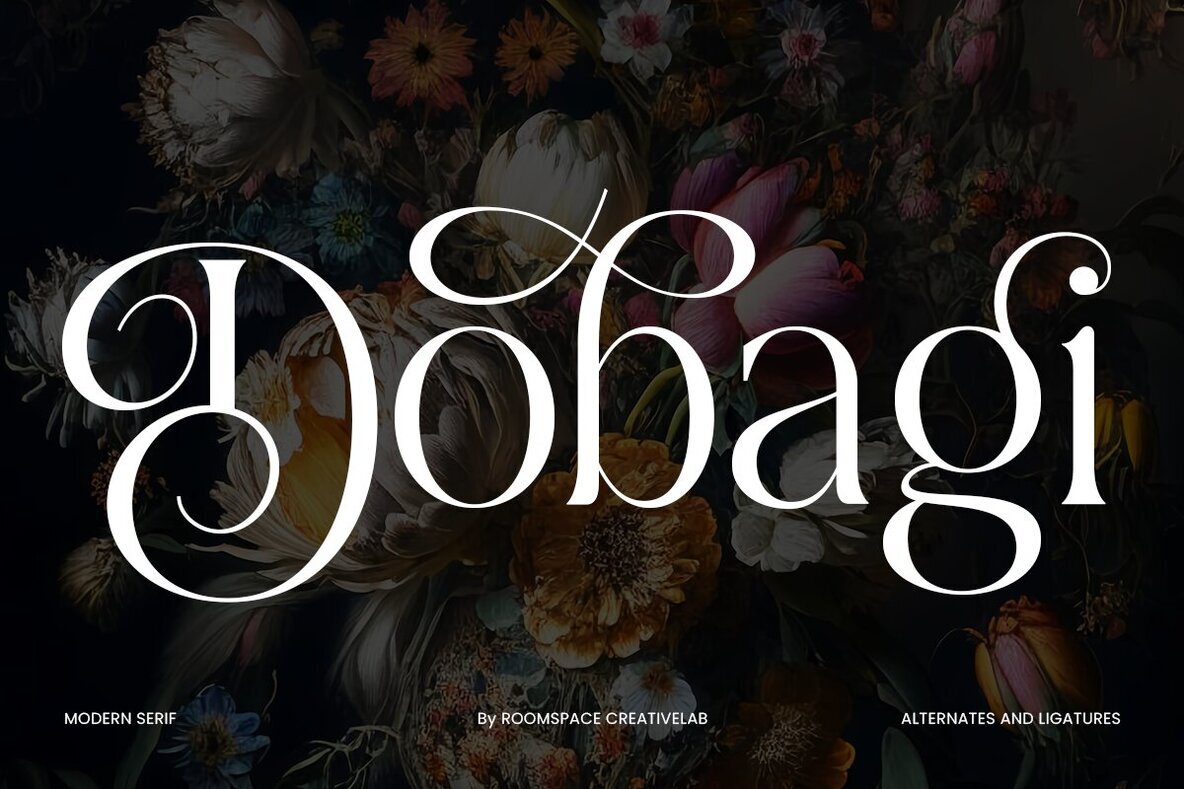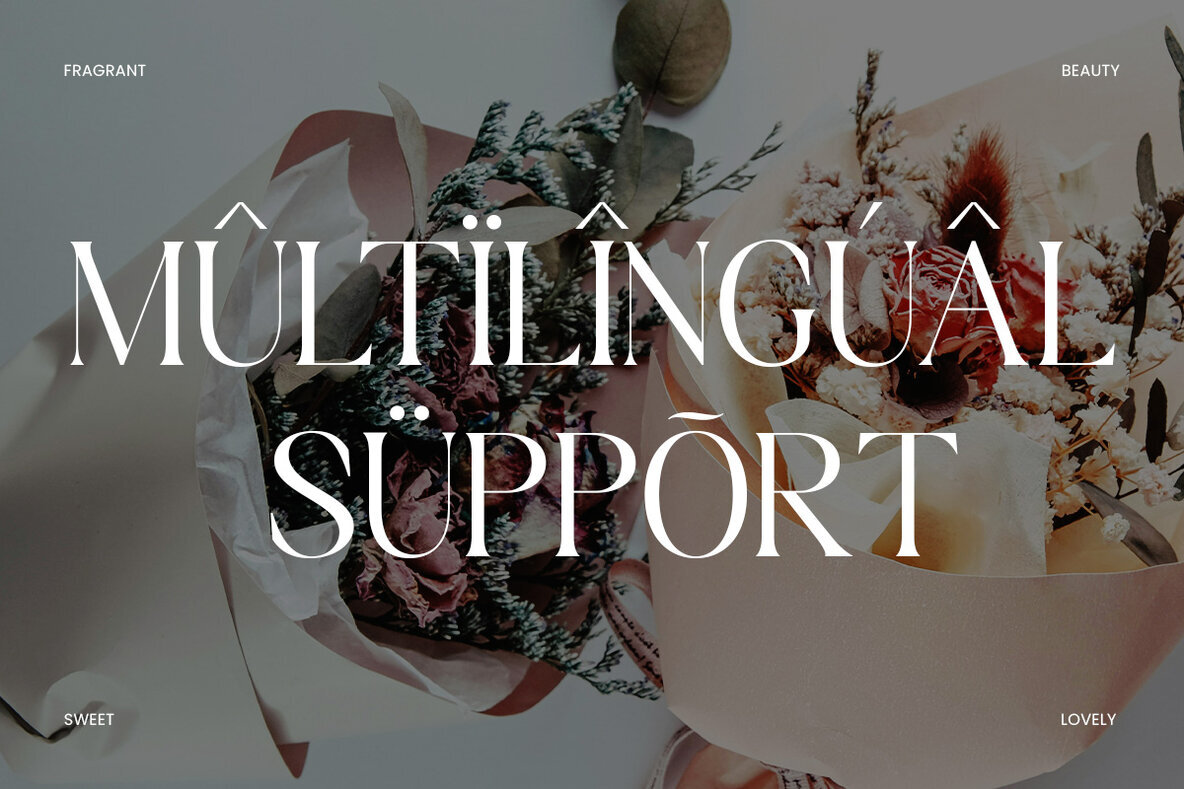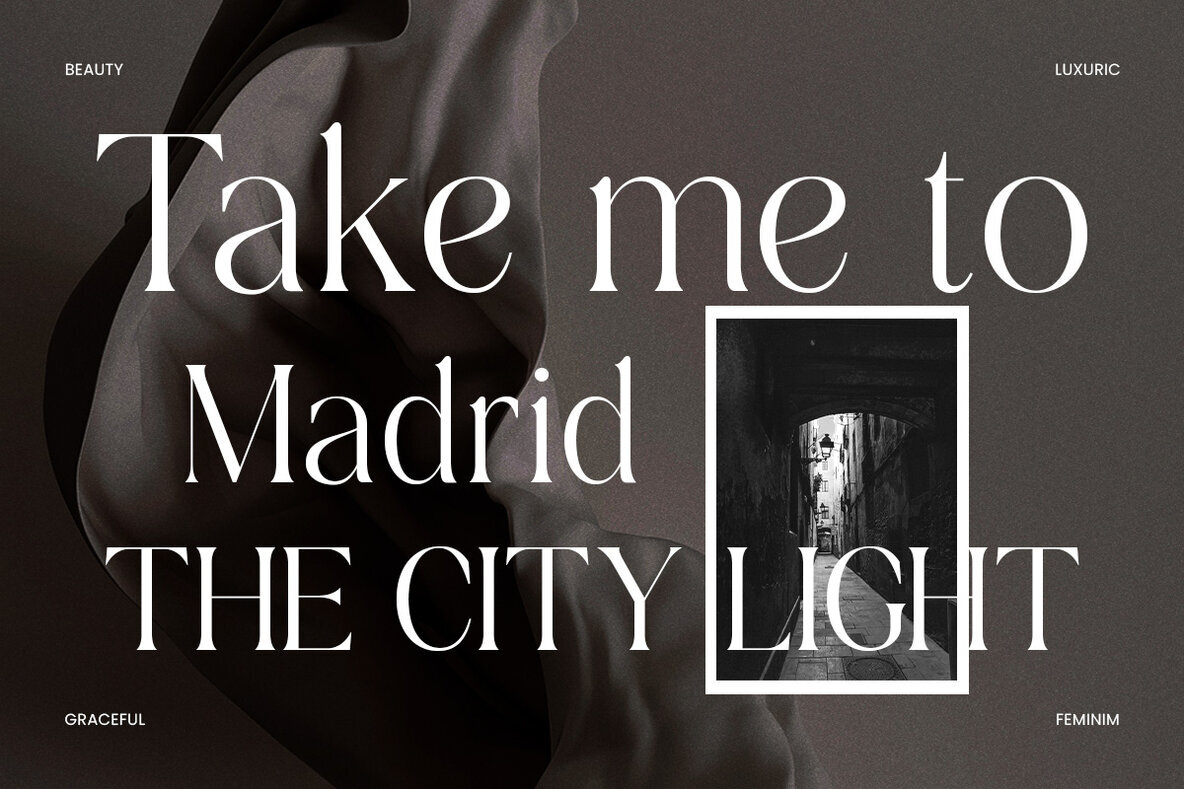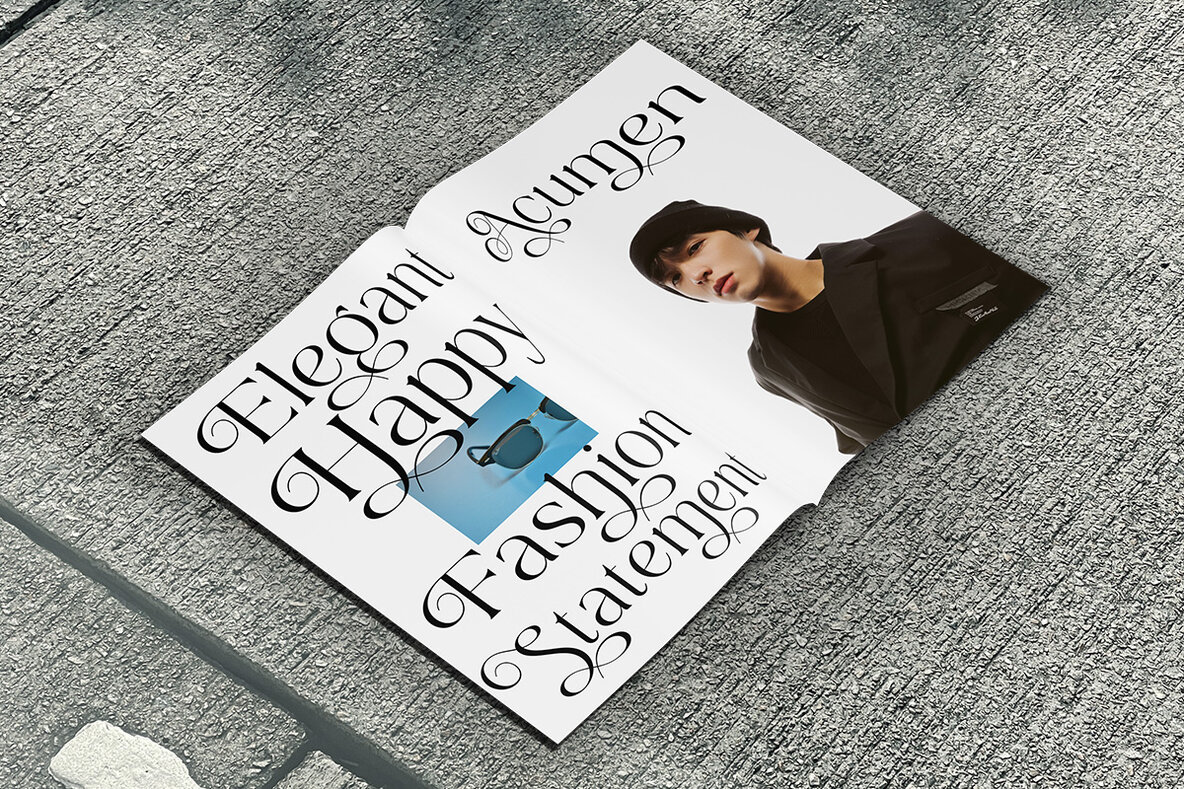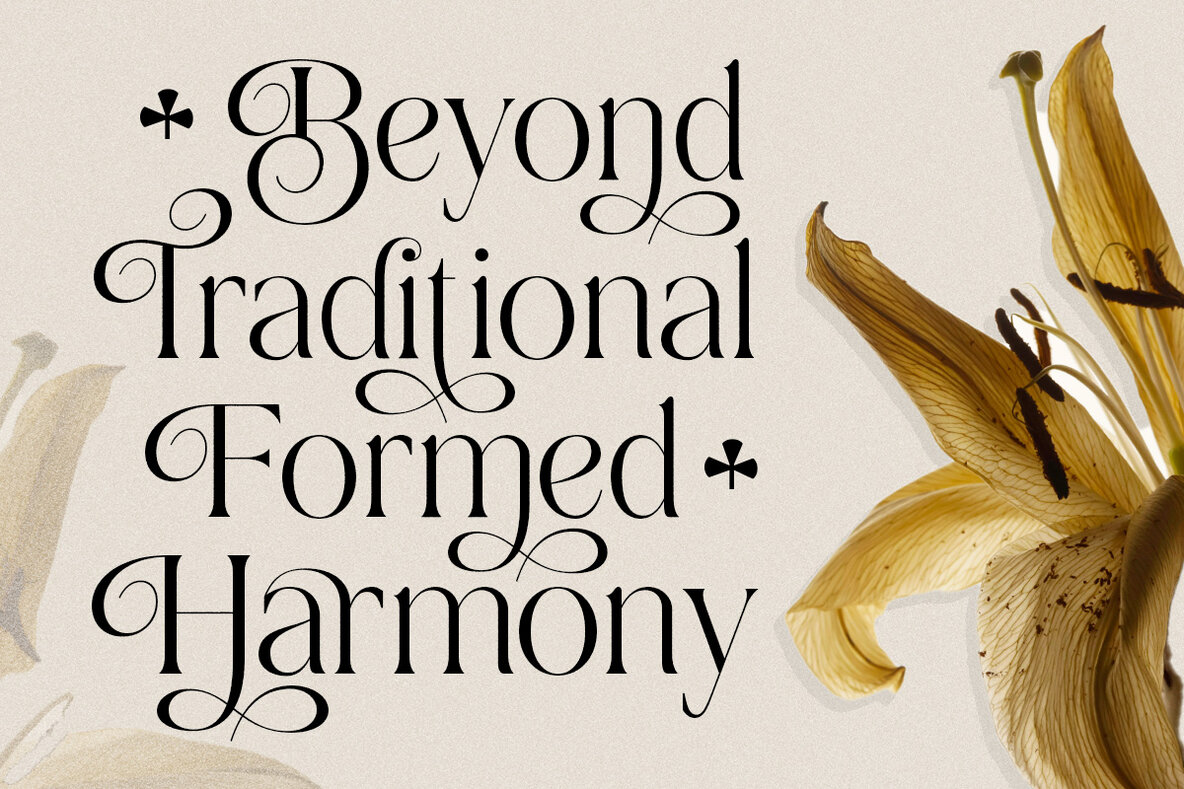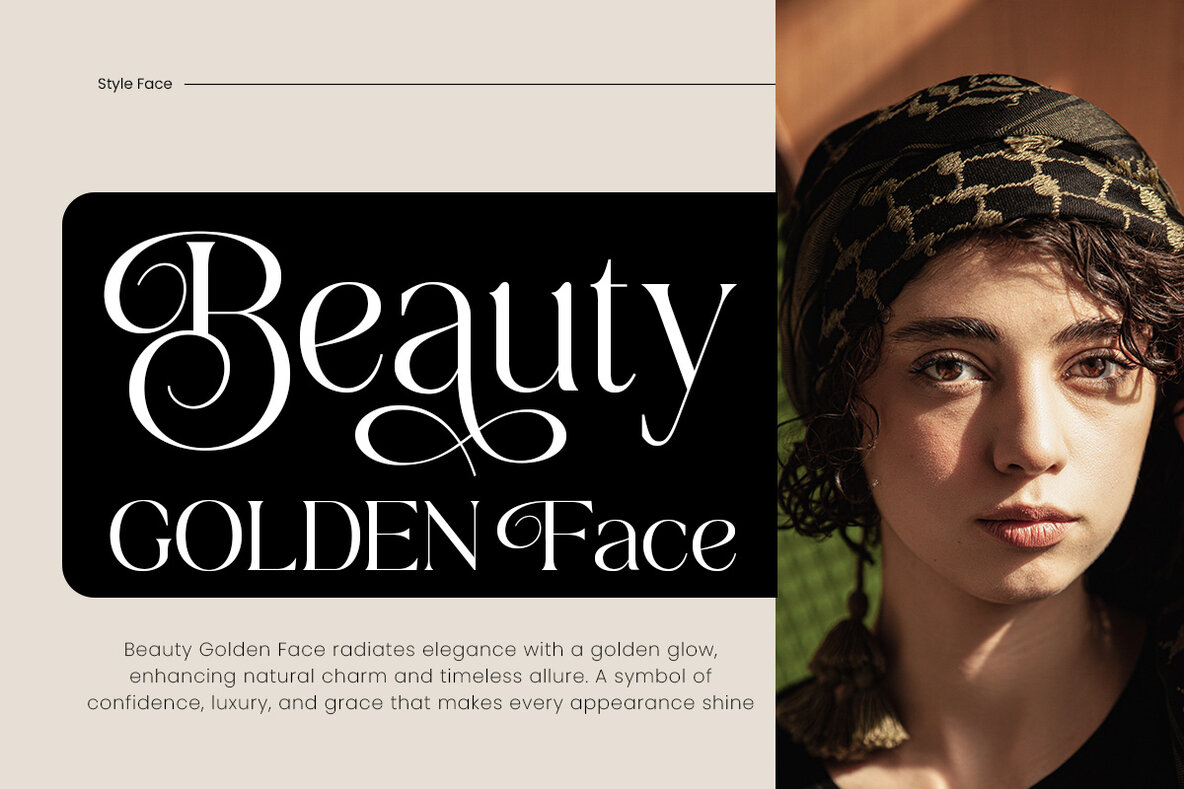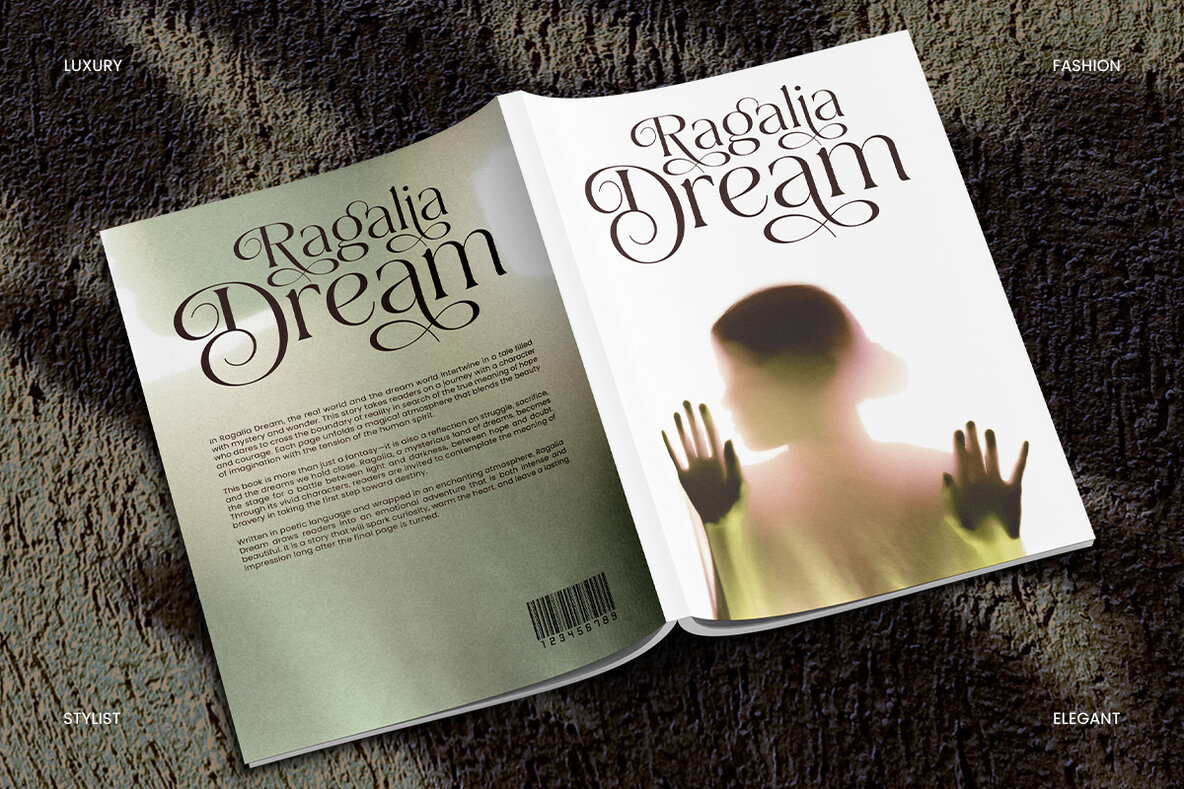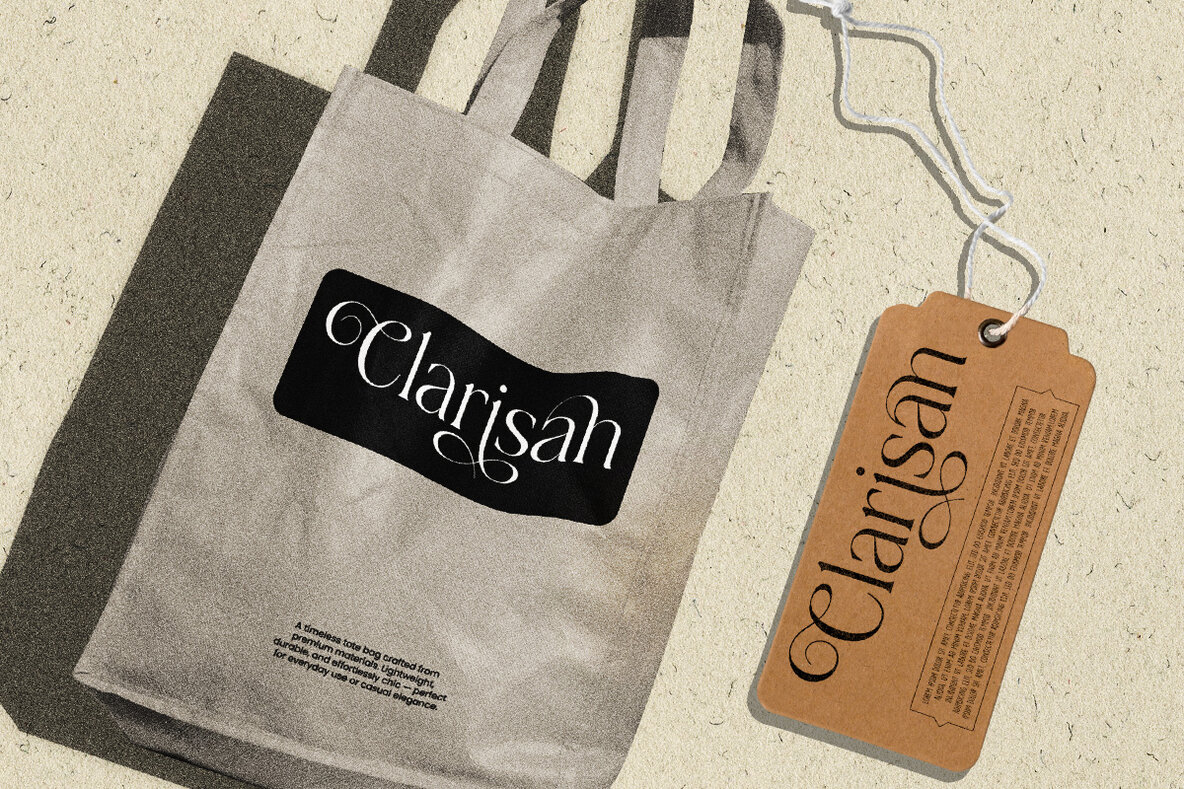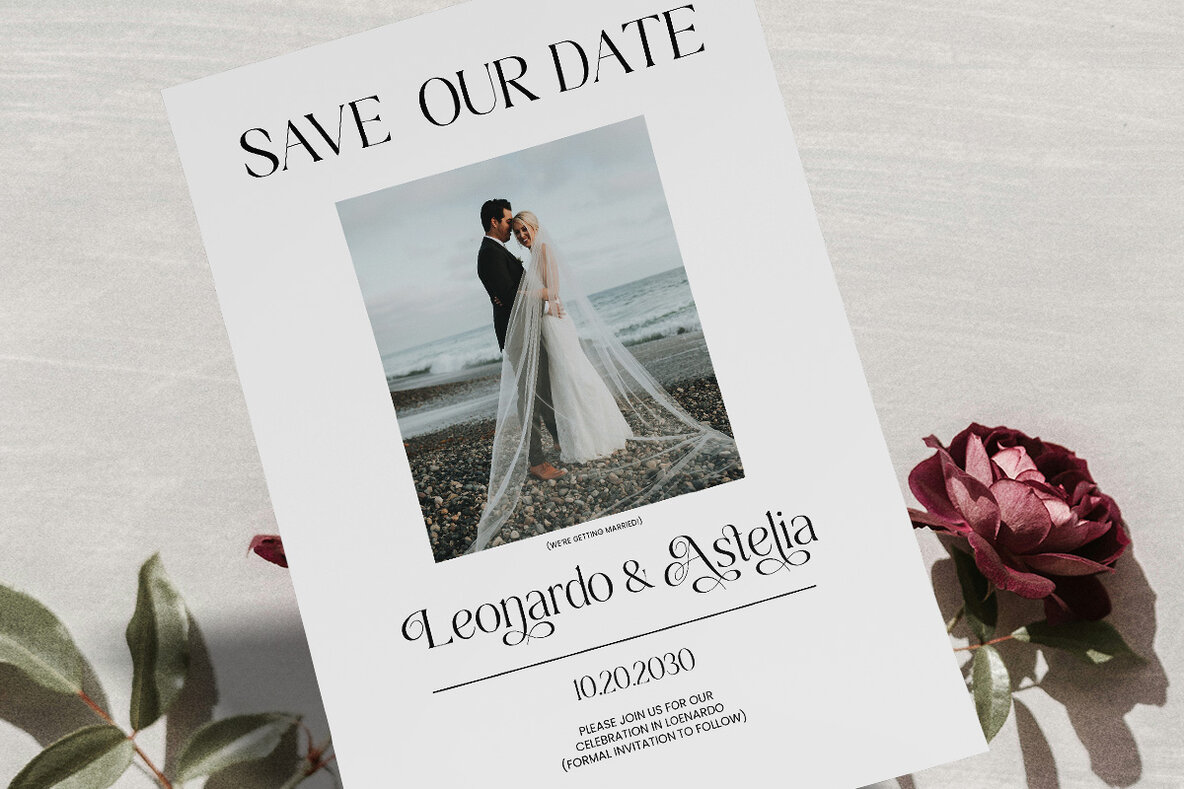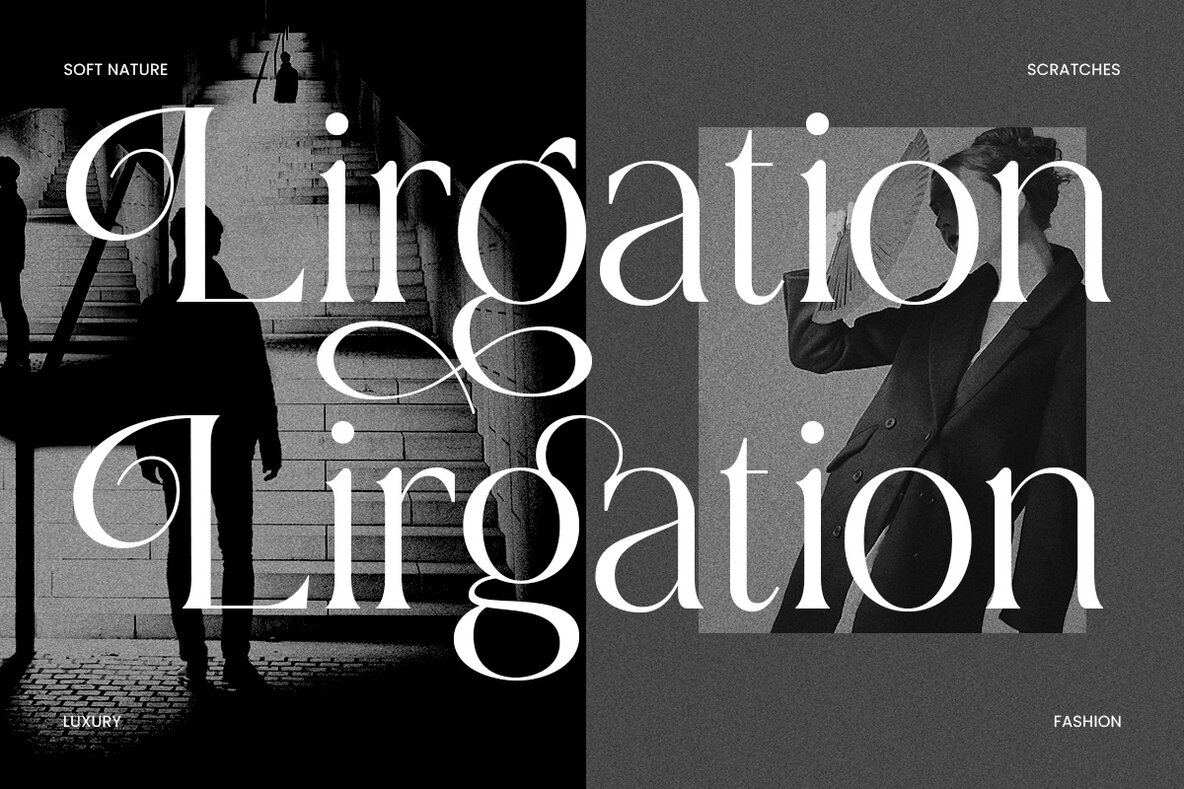
Dobagi Font
Dobagi Regular
Introducing Dobagi, a sophisticated modern serif font that exudes luxury, elegance, and timeless style. With its refined curves and bold details, Dobagi offers a seamless blend of classic and contemporary design elements. This versatile font features stylish alternates, smooth ligatures, and precise kerning, making it an ideal choice for a wide range of design projects including logos, branding, packaging, invitations, editorial layouts, and weddings. Whether for digital or print use, Dobagi adds a touch of sophistication to any creation.Dobagi: Modern Serif Font